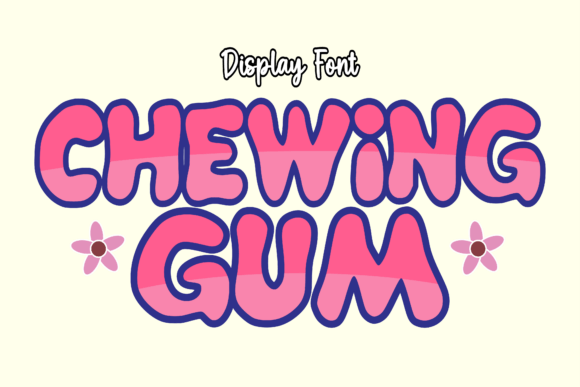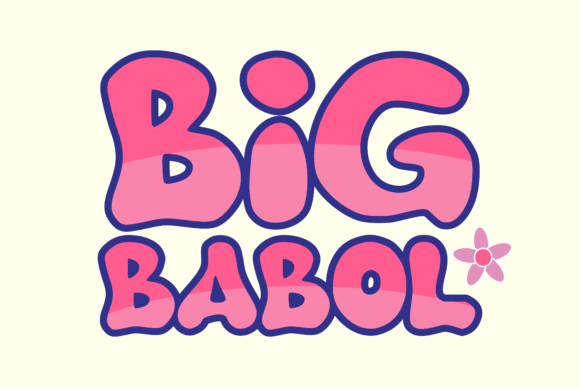
Unlock the Power of Whimsy with Cute Babol Font
Have you ever sat down to create something new, only to feel a spark of inspiration strike and you’re suddenly overflowing with ideas? That’s exactly what happens when you’re working with the right tools – and that’s where Cute Babol Font comes in. This delightful font is more than just a typeface, it’s a key to unlocking a world of vibrant creativity and playful possibilities.
Cute Babol Font is a radiant and effervescent font that’s bursting with vibrant potential. Its sprightly style makes it perfect for crafting enchanting invitations, playful stickers, expressive comics, and charming posters. Whether you’re a seasoned designer or just starting out, Cute Babol Font is a valuable addition to your creative toolkit, offering a unique way to bring joy and whimsy to your projects.
Cute Babol Font Key Features
- Font Style: Cute, Childish, and Playful
- Character Set: Includes a wide range of characters, including Latin, Cyrillic, and Greek alphabets, as well as punctuation and symbols
- Unique Characteristics: Features a unique, hand-drawn design with rounded edges and soft lines, making it perfect for creating a whimsical and playful atmosphere
Cute Babol Font Review
I recently had the chance to work with the Cute Babol font, and I must say it’s a unique addition to any design project. ✨ One of the things that stood out to me was the playful, childlike feel it brings to text. It’s perfect for creating a whimsical atmosphere in branding, marketing materials, or even children’s educational content.
Here are some of the key things that work well with Cute Babol:
- ✨ Unique aesthetic: The font’s quirky design elements and rounded edges give it a one-of-a-kind look that’s sure to grab attention.
- ✨ Versatility: Cute Babol can be used for a wide range of projects, from digital media to print materials, and still look great.
- ✨ Friendly feel: The font’s rounded edges and soft lines make it feel approachable and welcoming, which is perfect for brands that want to connect with their audience on a personal level.
- ⚠️ Limited legibility: In smaller font sizes, Cute Babol can become difficult to read, especially for those with vision impairments.
- ⚠️ Limited bolding options: The font’s bold weights can sometimes look a bit clumsy, which may not be ideal for headings or titles.
Overall, I think Cute Babol is a great choice for designers who want to add a touch of whimsy to their projects. With some careful planning and consideration, its unique aesthetic can really shine through and make a lasting impression.
The Cute Babol Font is perfect for:
Remember to pair the font with a clean and simple design to avoid visual clutter.
Alternatives to Cute Babol Font
Great Vibes is a modern, elegant script font that is perfect for adding a touch of sophistication to your designs. It’s ideal for use in logos, invitations, and other creative projects where a unique, handwritten feel is desired. Great Vibes is a bit more formal than Cute Babol Font, making it a great choice for professional or formal designs.
Comparison to Cute Babol Font: Great Vibes has a more refined and polished look, while Cute Babol Font is more playful and casual.
Alex Brush is a beautiful, handwritten font that is reminiscent of a brush-painted look. It’s perfect for use in creative projects such as book titles, magazine covers, and advertisements. Alex Brush is a bit more dramatic and expressive than Cute Babol Font, making it a great choice for designs that need to make a statement.
Comparison to Cute Babol Font: Alex Brush has a more dramatic and expressive feel, while Cute Babol Font is more subtle and understated.
Carolyna Pro is a modern, elegant script font that is perfect for use in logos, invitations, and other creative projects. It’s ideal for designs that need a touch of sophistication and elegance. Carolyna Pro is similar to Cute Babol Font in its playful and casual feel, but it’s a bit more refined and polished.